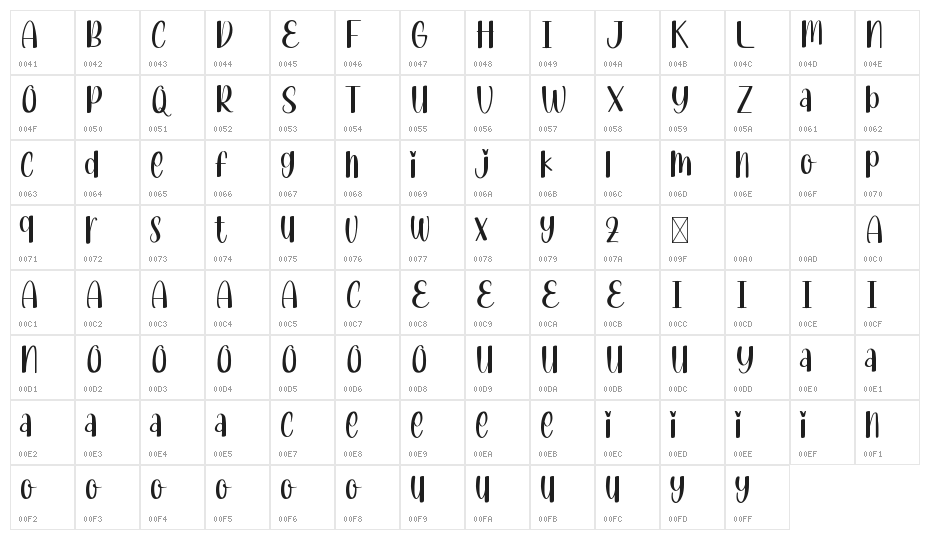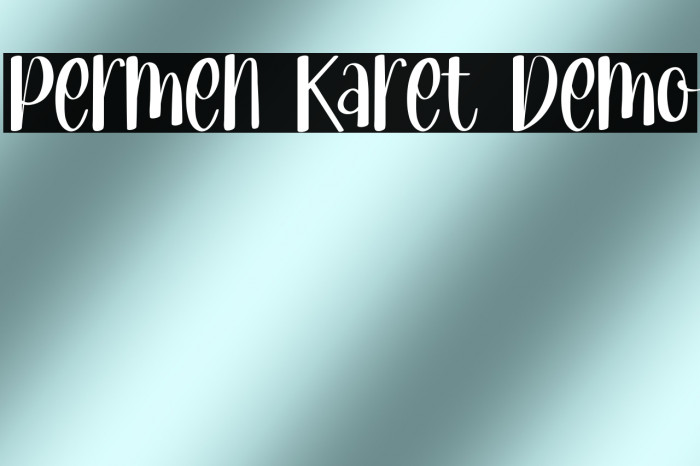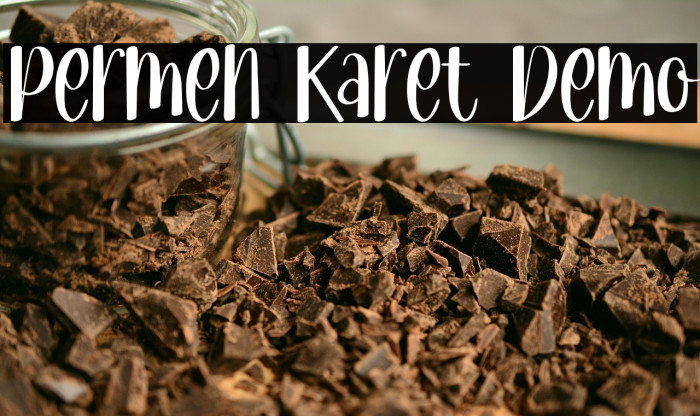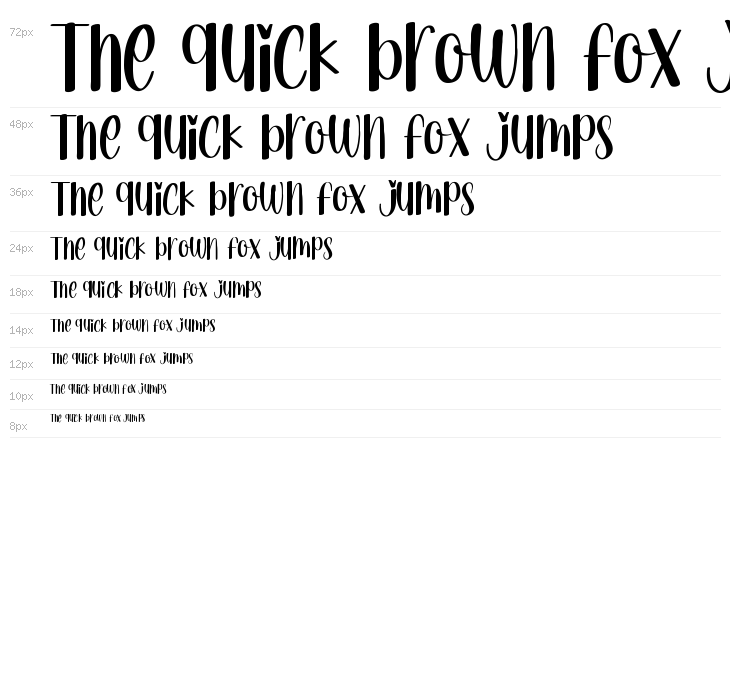
Permen Karet Demo Font
Permen Karet Demo Description
This playful and whimsical font features a unique blend of thick and thin strokes, creating a lively and dynamic appearance. The uppercase letters are bold and slightly condensed, with a distinctive flair that adds character to each letterform. The lowercase letters maintain a consistent style, with some characters exhibiting a charming loop or curl, enhancing the font's playful nature. The numbers and special characters are designed to match the overall aesthetic, ensuring a cohesive look across all text. This font's distinctive style makes it stand out, offering a fresh and modern take on traditional letterforms.
| Proposed Projects | Ideal for children's books, playful branding, greeting cards, and creative posters. |